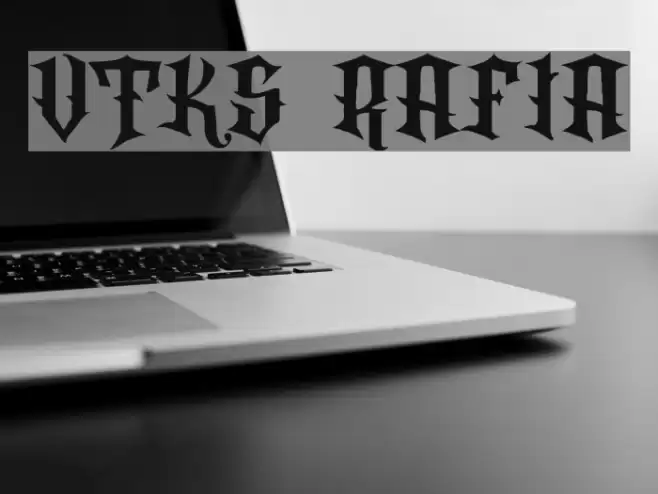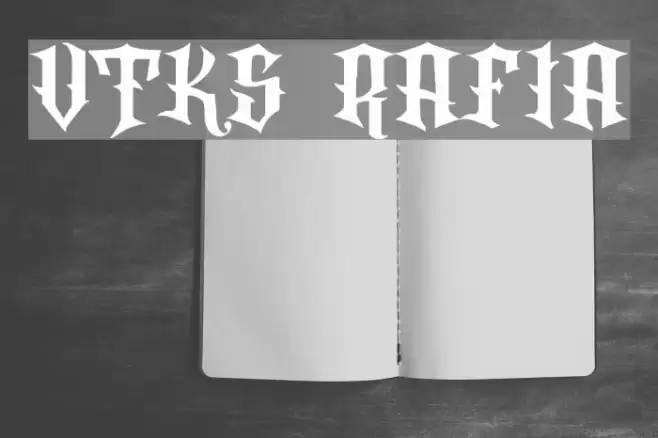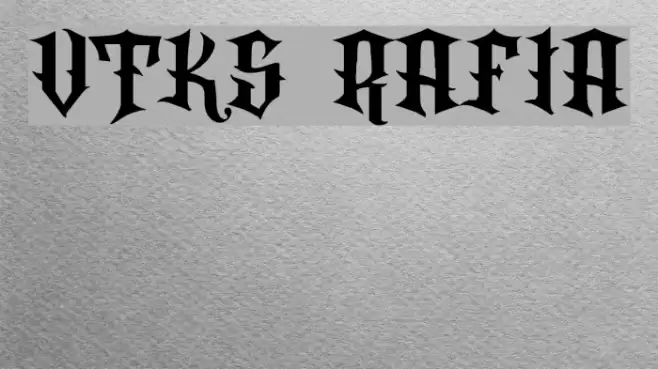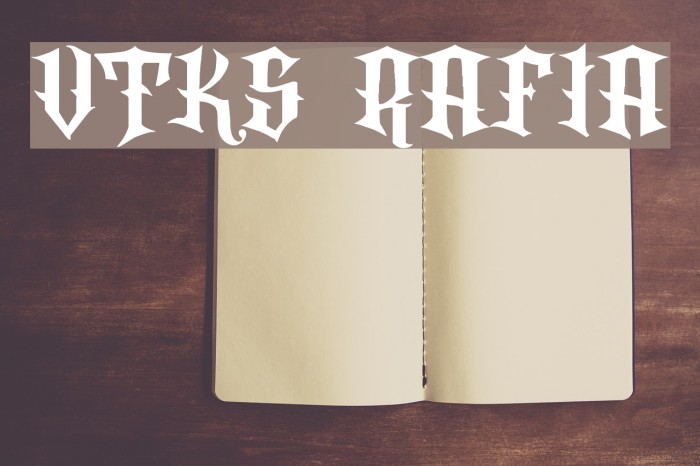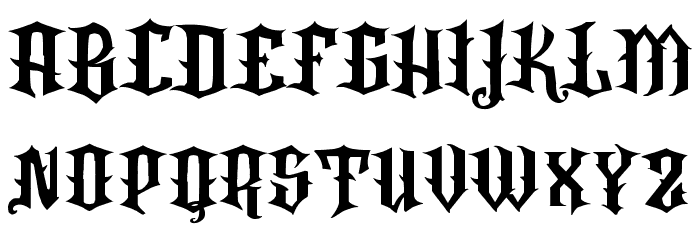
VTKS Rafia Font
VTKS Rafia Description
This font features a bold and dramatic style reminiscent of traditional Blackletter typefaces. It exhibits sharp, angular lines with intricate detailing, creating a sense of historical elegance and authority. The characters are tightly spaced, enhancing the compact and robust appearance. The uppercase letters are particularly ornate, with flourishes that add a decorative touch. This font is ideal for projects that require a strong, impactful visual presence, such as posters, logos, or branding materials that aim to convey a sense of tradition and strength.
A bold, dramatic Blackletter-style font with intricate detailing from Uncategorized fonts.
- Proposed Projects: Ideal for posters, logos, branding materials, and any design requiring a strong, historical aesthetic.
- Character Spacing: Tight
- Overall Style: Vintage